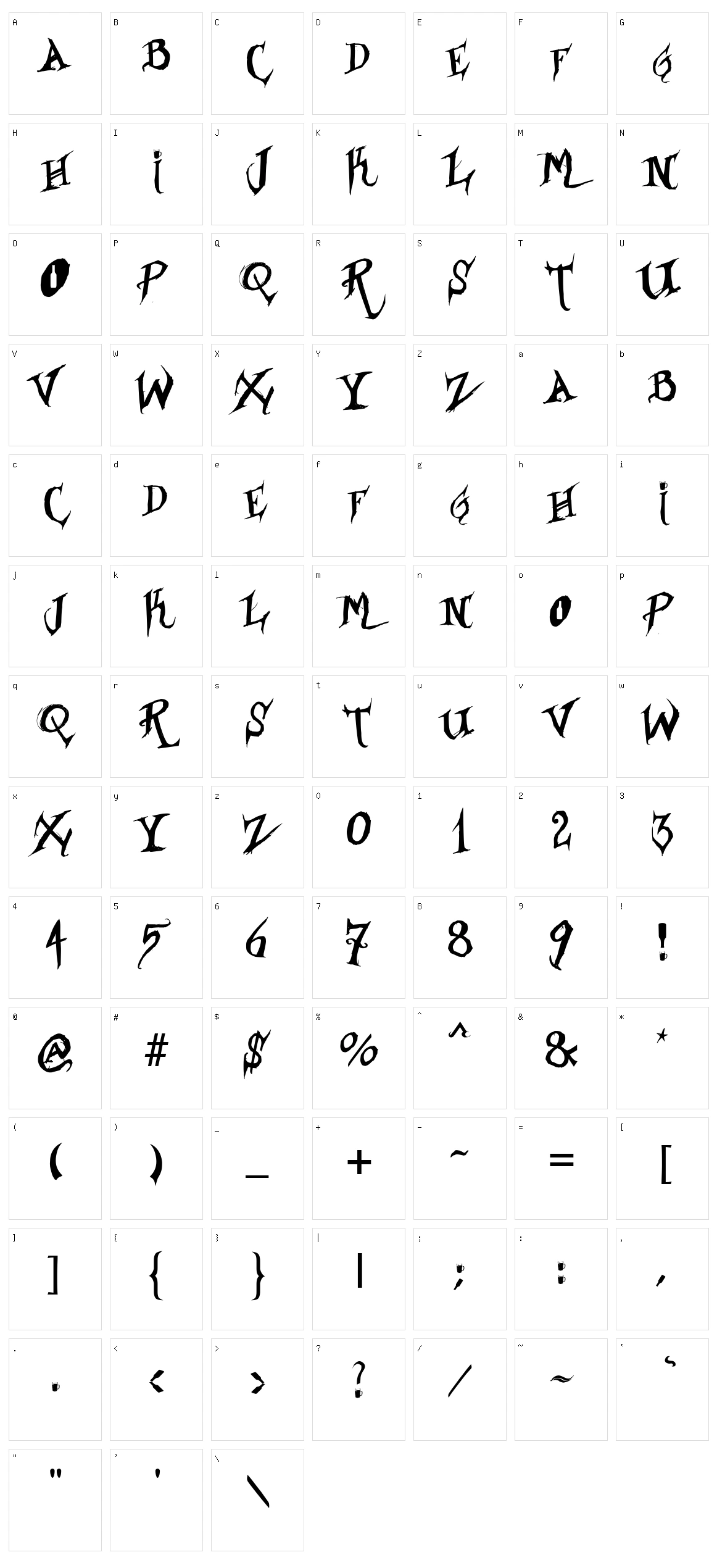
Borracho
Designed by: Juan Casco
Serif font with a drunked style (Borracho means Drunked in Spanish) using bottles and beer cups.
I designed when i was drinking many....many beer!